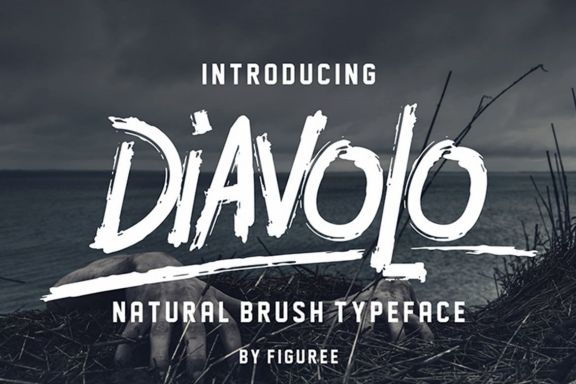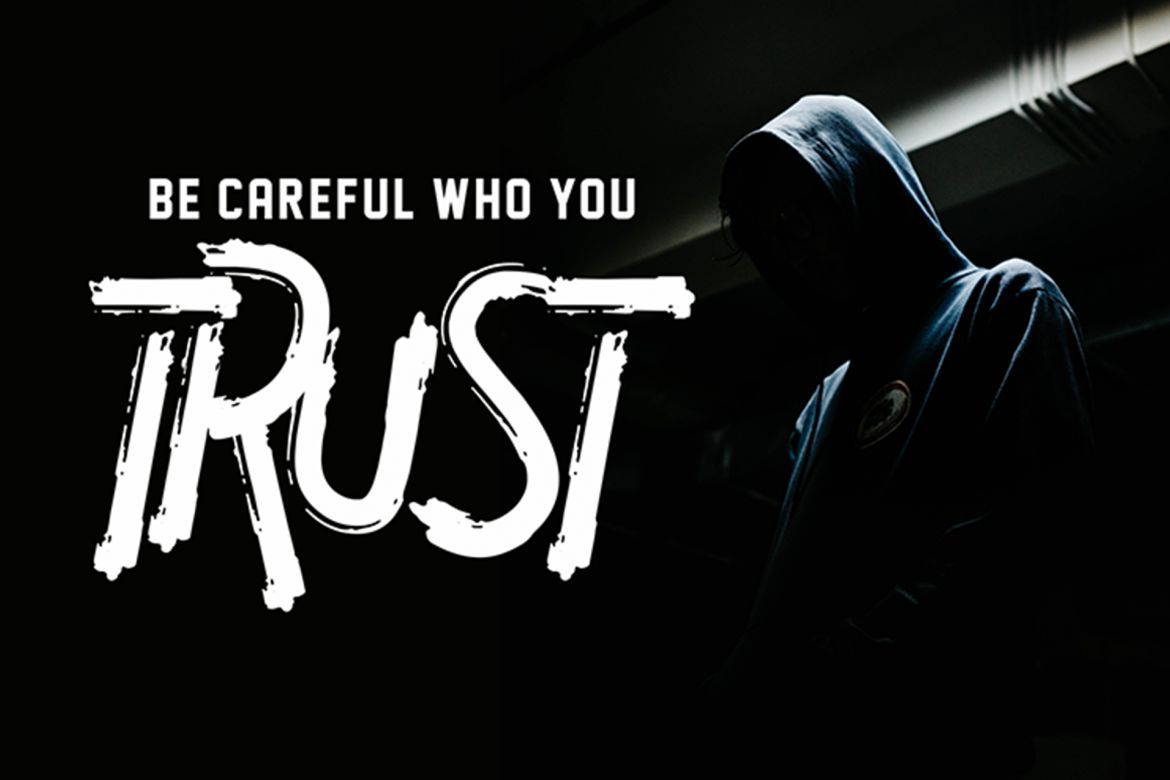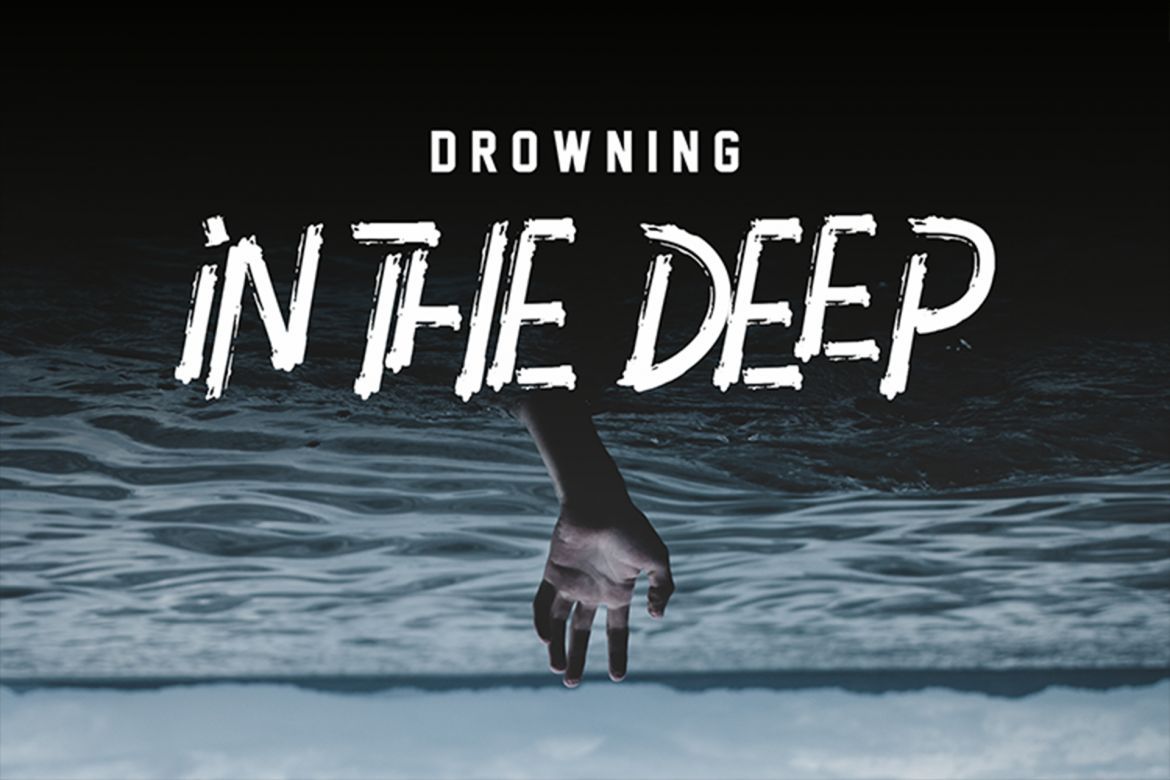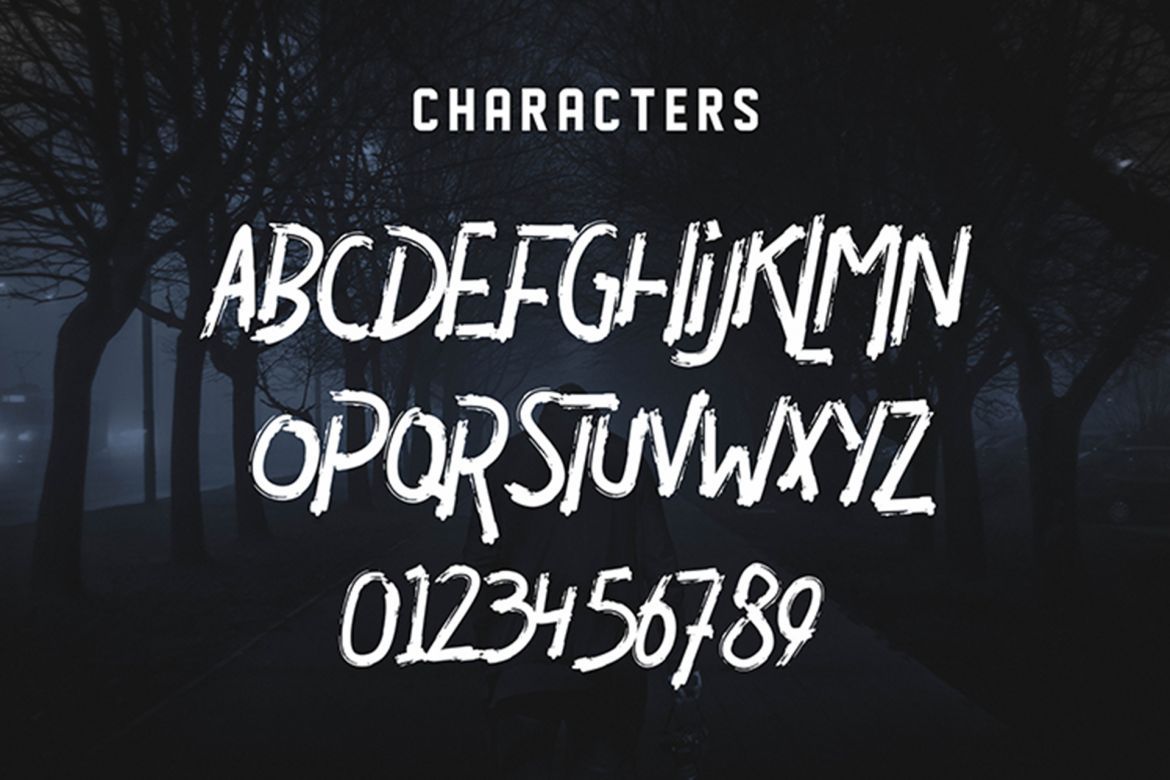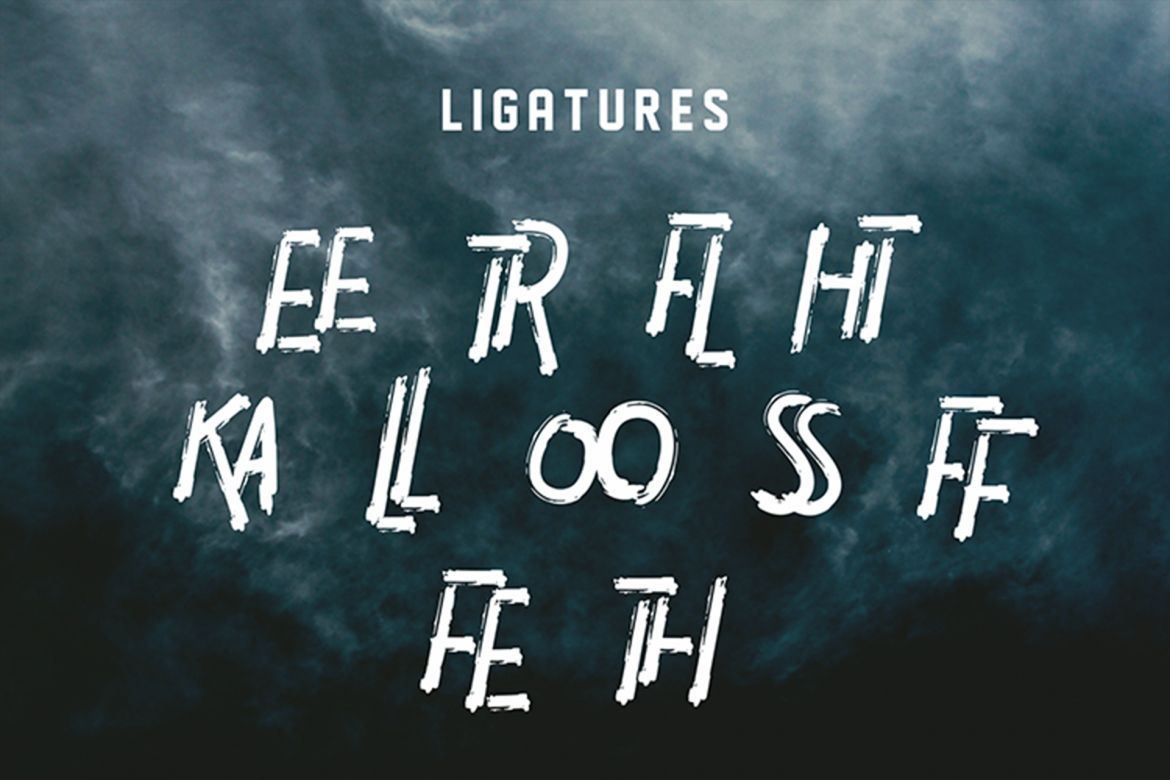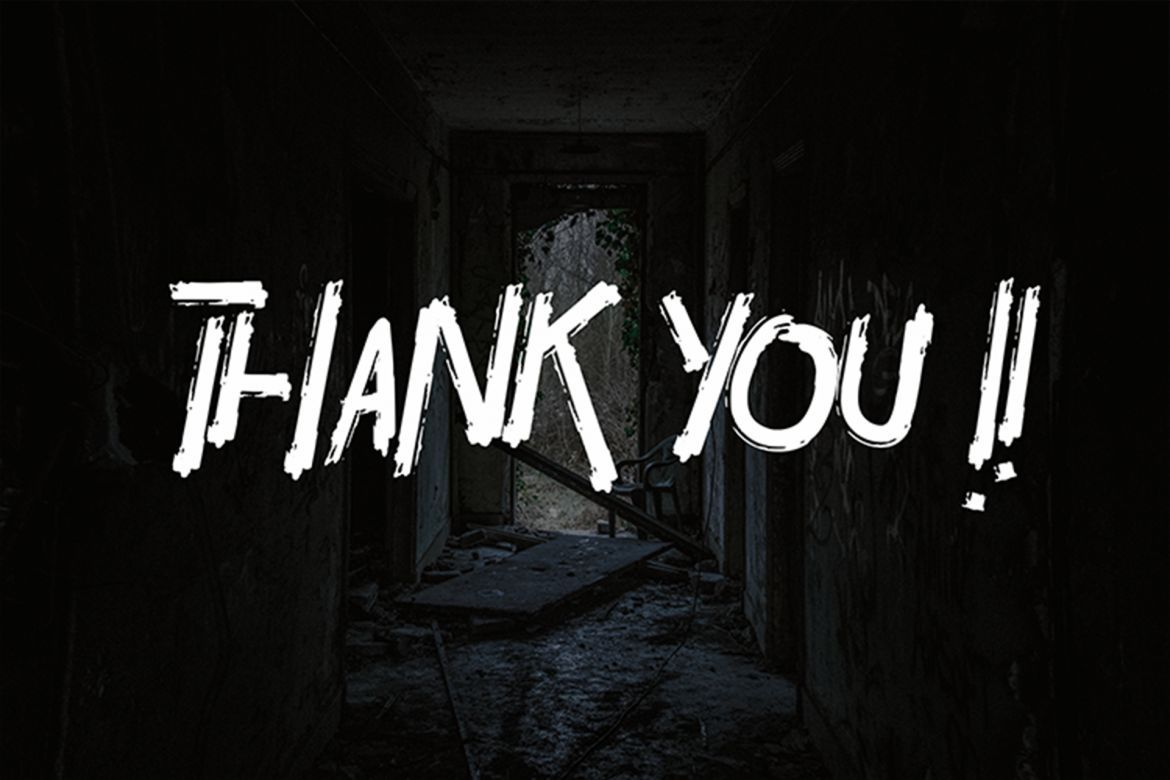
Diavolo Brush Font
The Diavolo is a brush typeface. It was made to give a realistic hand-drawn look to your typographic work. Use Diavolo to make logo marks, posters, t-shirt designs or anything that requires a personal touch.
• - natural look
• - personal touch